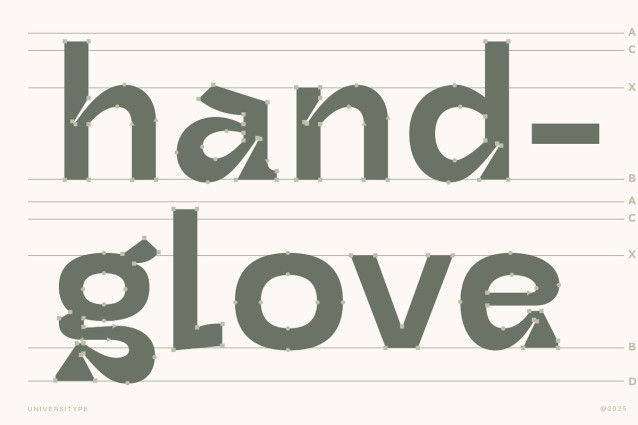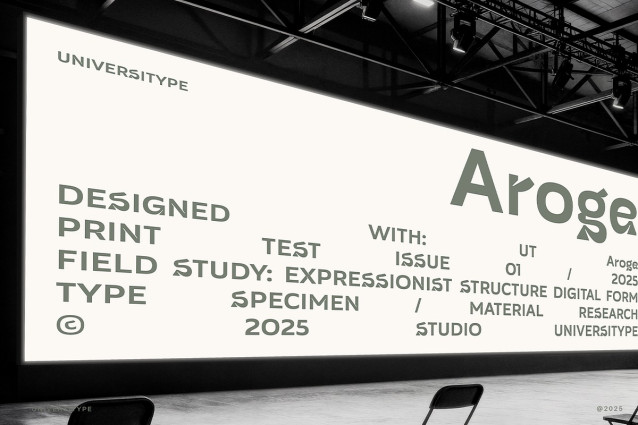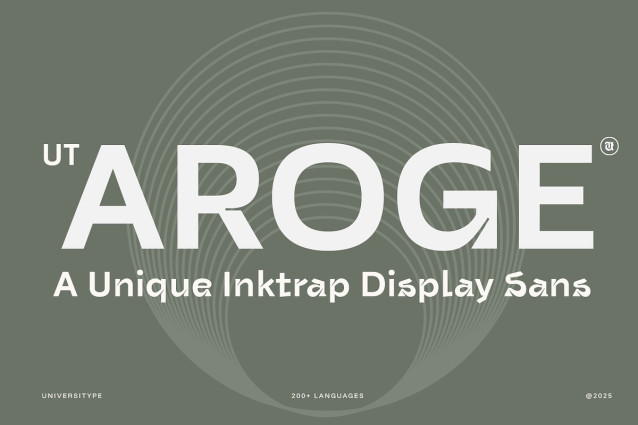
UT Aroge Font
UT Aroge Font takes cues from the quiet tension found in stillness—steady lines interrupted by sharp turns, like motion frozen at the perfect moment. The ink traps shape the rhythm, almost like small cuts guiding the eye. It also nods to a sense of endurance and balance, where structure meets gentler curves. The design grows from that contrast: movement held inside a calm frame.